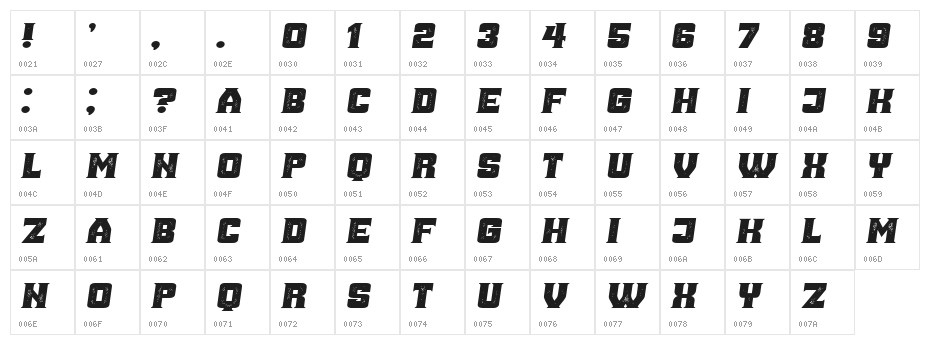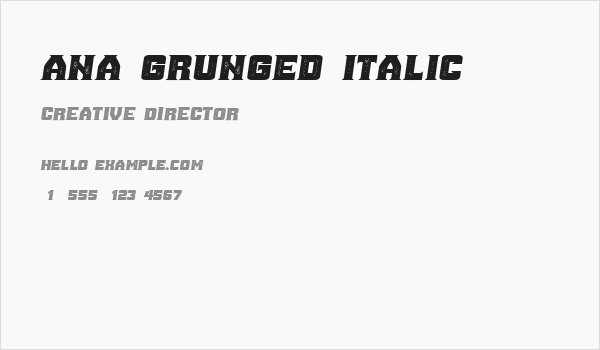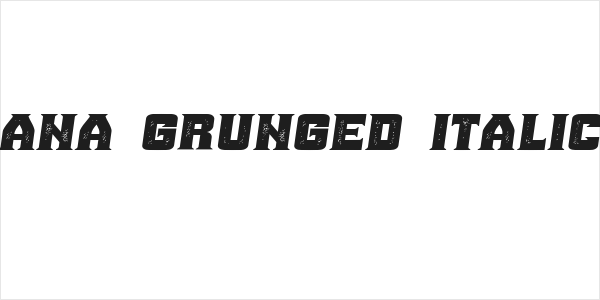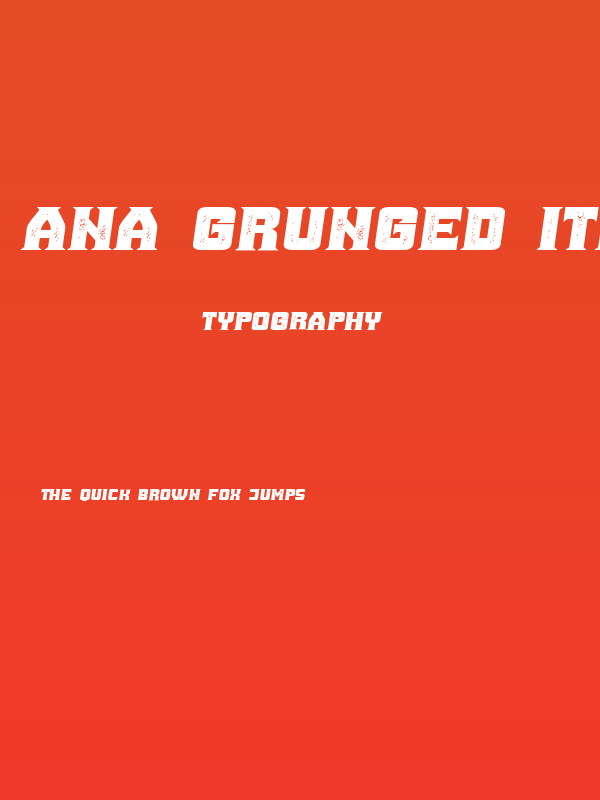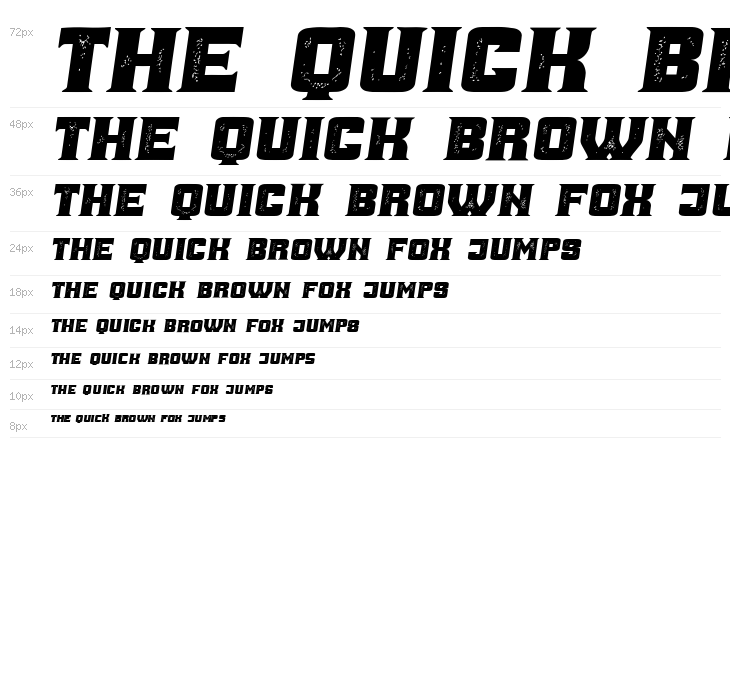
Ana Grunged Italic Font
Ana Grunged Italic Description
This font features a bold, italicized style with a distinct grunge texture applied to each character, giving it a rugged and distressed appearance. The uppercase and lowercase letters maintain a consistent slant, enhancing the italic effect. The numbers and special characters follow the same stylistic approach, ensuring uniformity across all glyphs. The font's design is characterized by its thick strokes and rough edges, which contribute to its bold and impactful presence. This makes it particularly suitable for projects that require a strong visual statement.
Overall StyleGrunge, Decorative
Proposed ProjectsIdeal for music album covers, posters, branding for edgy or alternative products, and any design requiring a bold, distressed look.